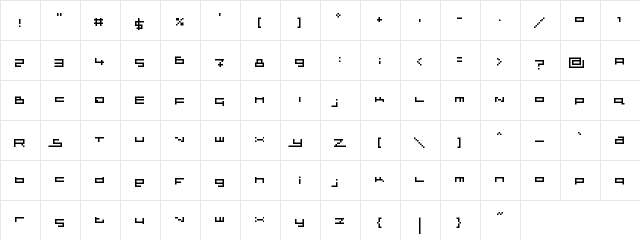
sloth Regular
Design Context for sloth Typeface
sloth offers clean, dependable letterforms without strong stylistic allegiance, making it a practical choice for designers who need flexibility.